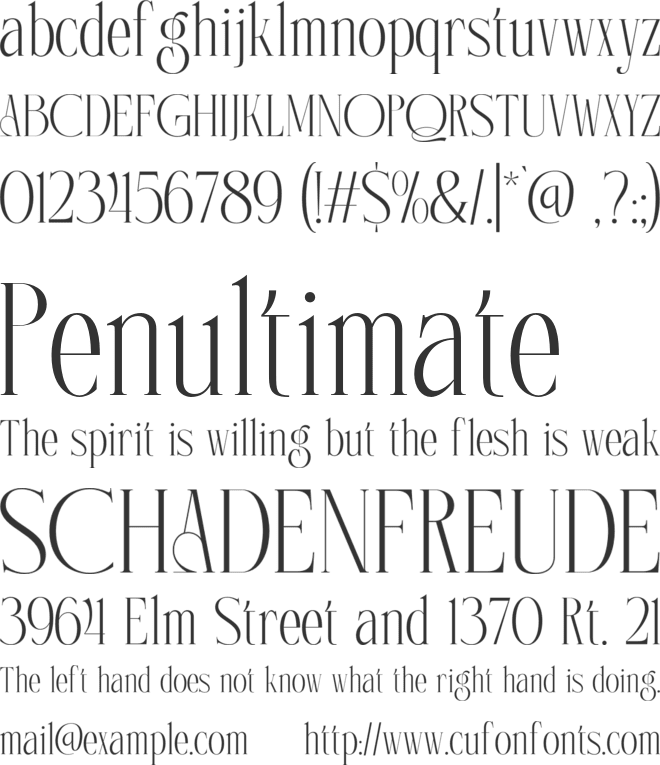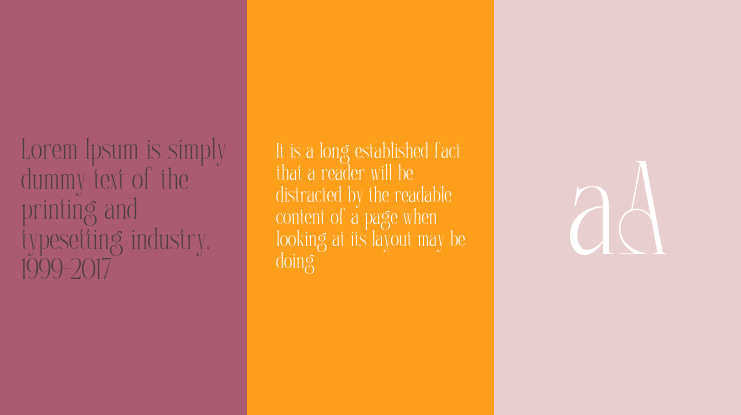
Romane Font
Romane, a modern serif typeface crafted with elegance, character, and a subtle touch of vintage romance. Featuring smooth curves, refined contrast, and delicate detailing, Romane brings timeless sophistication to any design project.